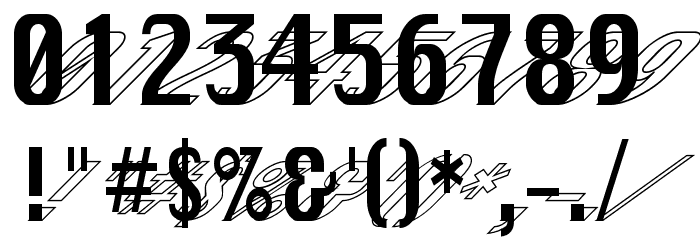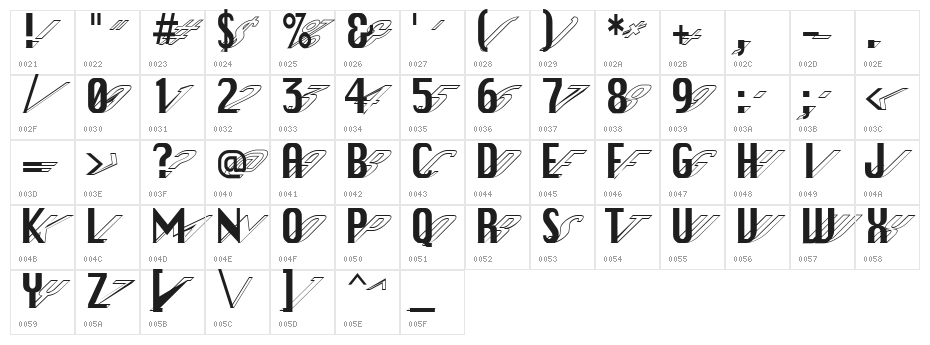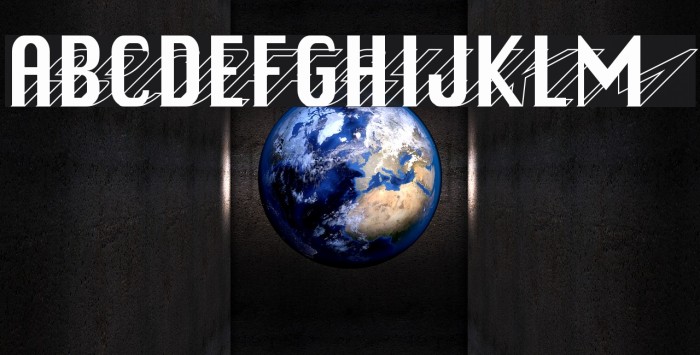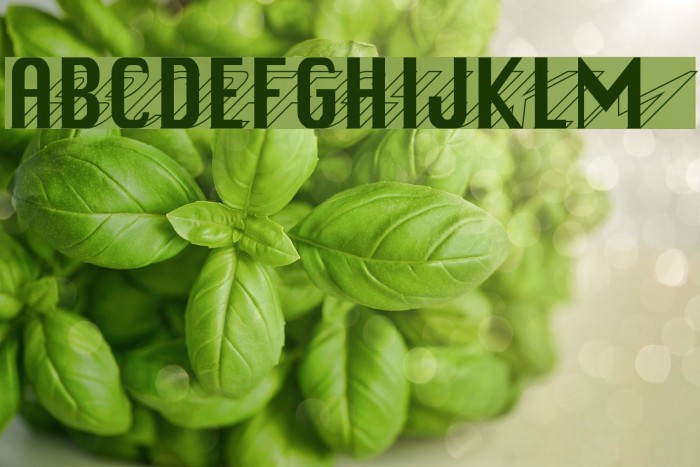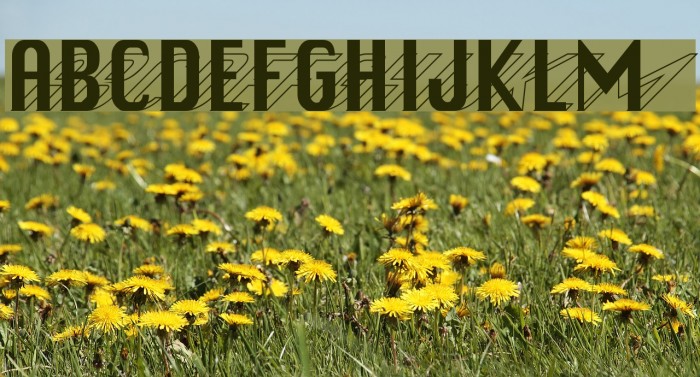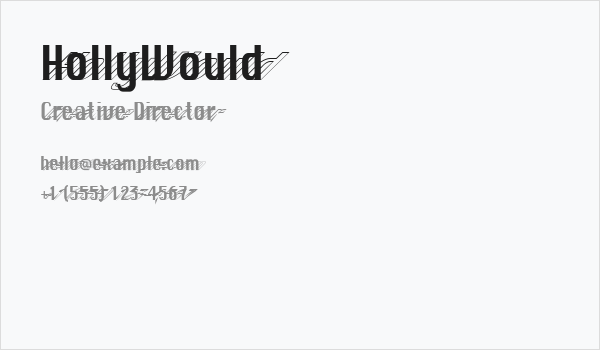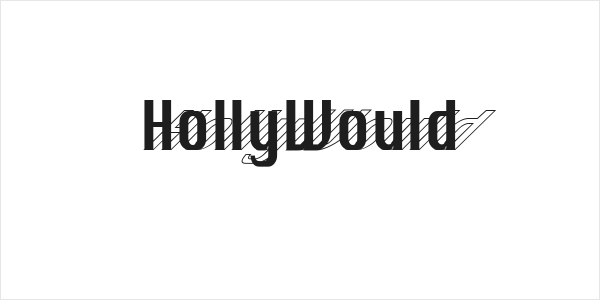
HollyWould Font
HollyWould Description
This font presents a unique blend of bold and italic characteristics, creating a dynamic and eye-catching appearance. The uppercase letters are strong and assertive, with a slight slant that adds a sense of motion and energy. The lowercase letters maintain this slant, offering a cohesive look throughout the text. Numbers and special characters are designed with the same boldness and slant, ensuring consistency. The font's style is both modern and decorative, making it suitable for projects that require a touch of flair and sophistication. Its bold strokes and italicized form make it stand out, while the consistent character spacing ensures readability.
| Proposed Projects | Ideal for branding, advertising, and headlines where a strong, stylish impact is desired. |